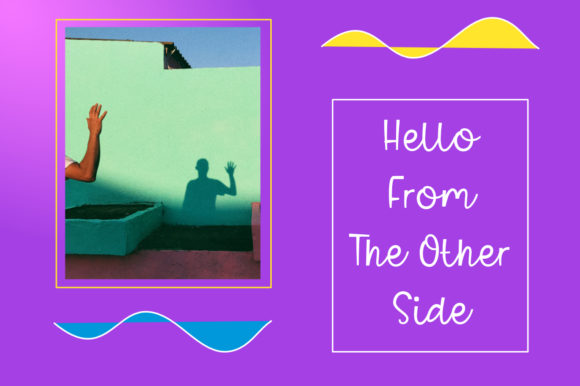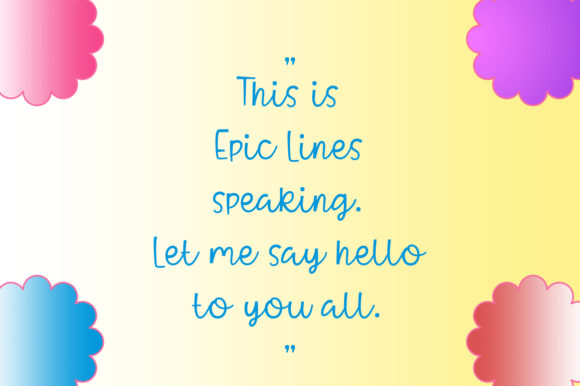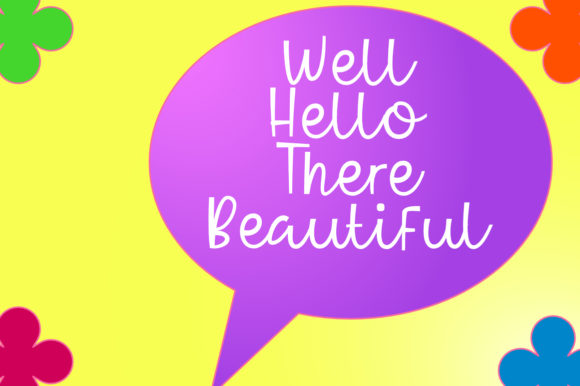
Epic Hello Font: The Casual and Friendly Script for Designers and Crafters
Are you tired of using the same old fonts in your designs? Look no further than Epic Hello, a casual and friendly script that’s perfect for adding a touch of personality to your projects. With its easygoing and smooth feel, Epic Hello is sure to become your go-to font for a wide range of design applications.
What is Epic Hello Font?
Epic Hello is a script font that’s designed to evoke a sense of friendliness and approachability. Its smooth, flowing lines and casual demeanor make it perfect for use in designs where you want to create a relaxed and welcoming atmosphere. Whether you’re working on a logo, a website, or a craft project, Epic Hello is a versatile font that can help you achieve your design goals.
Key Features of Epic Hello Font
- Easygoing and smooth feel: Epic Hello’s unique design gives it a laid-back, effortless vibe that’s perfect for creating a sense of calm and relaxation in your designs.
- Casual and friendly script: The font’s script style is informal and approachable, making it ideal for use in designs where you want to create a sense of warmth and personality.
- Versatile: Epic Hello is a versatile font that can be used in a wide range of design applications, from logos and branding to websites and craft projects.
- Legible: Despite its casual nature, Epic Hello is a highly legible font that’s easy to read, even at small sizes.
Who is Epic Hello Font for?
Epic Hello is perfect for designers and crafters who want to add a touch of personality to their projects. Here are some examples of designers and crafters who may find Epic Hello to be the perfect font:
- Graphic designers: Epic Hello is a great font for graphic designers who want to create logos, branding, and other marketing materials with a friendly and approachable vibe.
- Web designers: The font’s smooth, flowing lines make it perfect for use in web design, where it can help create a sense of calm and relaxation.
- Crafters: Epic Hello is also a great font for crafters who want to add a personal touch to their projects, such as handmade cards, gift tags, and other paper crafts.
- Small business owners: If you’re a small business owner who wants to create a friendly and approachable brand identity, Epic Hello is a great font to consider.
How to Use Epic Hello Font
Epic Hello is a versatile font that can be used in a wide range of design applications. Here are some ideas for using Epic Hello:
- Logos and branding: Use Epic Hello to create a friendly and approachable logo or brand identity.
- Web design: The font’s smooth, flowing lines make it perfect for use in web design, where it can help create a sense of calm and relaxation.
- Print design: Epic Hello is a great font for print design, where it can be used to create eye-catching headlines, titles, and other text elements.
- Craft projects: Add a personal touch to your craft projects, such as handmade cards, gift tags, and other paper crafts, with Epic Hello.
Tips for Getting the Most out of Epic Hello Font
Here are some tips for getting the most out of Epic Hello:
- Experiment with different sizes: Epic Hello looks great at a wide range of sizes, from small and delicate to large and bold.
- Play with color: The font’s smooth, flowing lines look great in a wide range of colors, from bright and bold to soft and pastel.
- Combine with other fonts: Epic Hello pairs well with a wide range of other fonts, so don’t be afraid to experiment with different combinations.
Overall, Epic Hello is a versatile and friendly font that’s perfect for designers and crafters who want to add a touch of personality to their projects. With its easygoing and smooth feel, Epic Hello is sure to become your go-to font for a wide range of design applications.